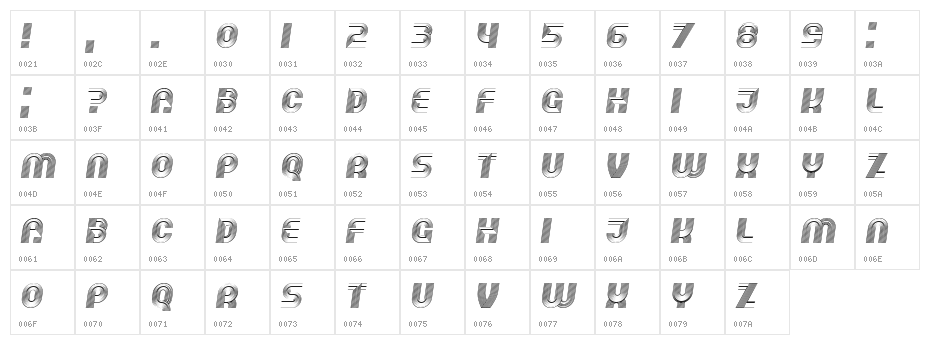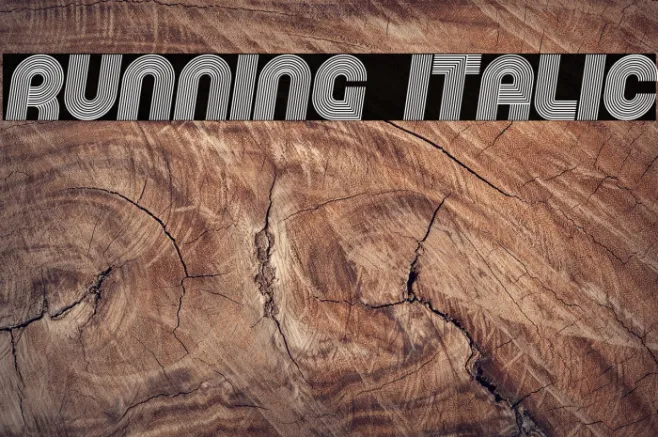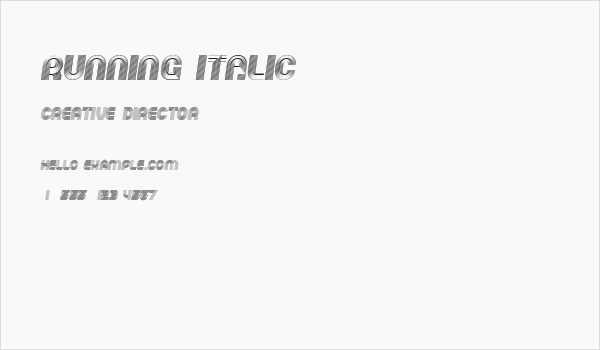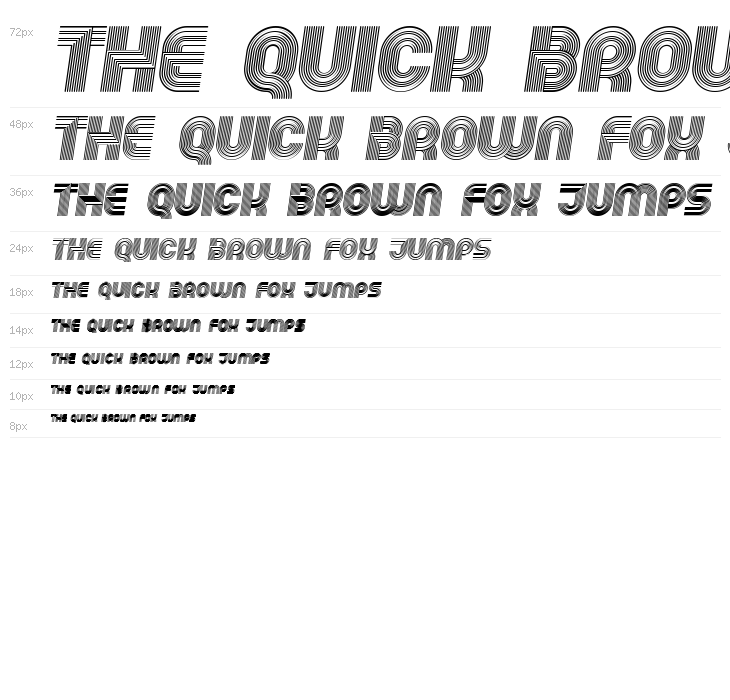
Running Italic Font
Running Italic Description
This font features a dynamic and energetic design, characterized by multiple parallel lines that create a sense of movement and speed. The letters are bold and italicized, giving them a forward-leaning appearance that enhances the feeling of motion. The geometric structure is consistent across all characters, maintaining a uniform look while the line pattern adds a unique texture. This font is visually striking and commands attention, making it ideal for projects that require a modern and impactful aesthetic.
| Proposed Projects | Ideal for sports branding, dynamic posters, modern advertisements, and any project needing a sense of speed and energy. |